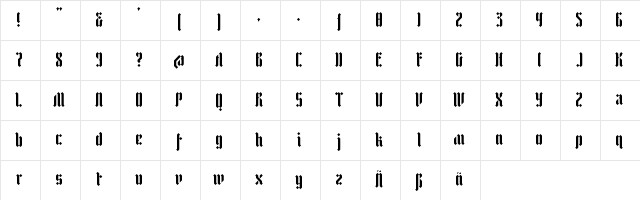
zfraktur eYe/FS Regular
Designer: Antonio J. Morata
Design Context for zfraktur eYe/FS
zfraktur eYe/FS draws on the rich tradition of blackletter calligraphy, with dense, angular strokes that evoke medieval manuscripts and old-world craftsmanship.
Font Pairing: Pair with a clean neutral sans-serif for body copy to let zfraktur eYe/FS's character lead without overwhelming the composition.
Pro Tip: Reserve zfraktur eYe/FS for display and logo use - pair it with a clean sans-serif for body copy to prevent the composition from feeling oppressive.